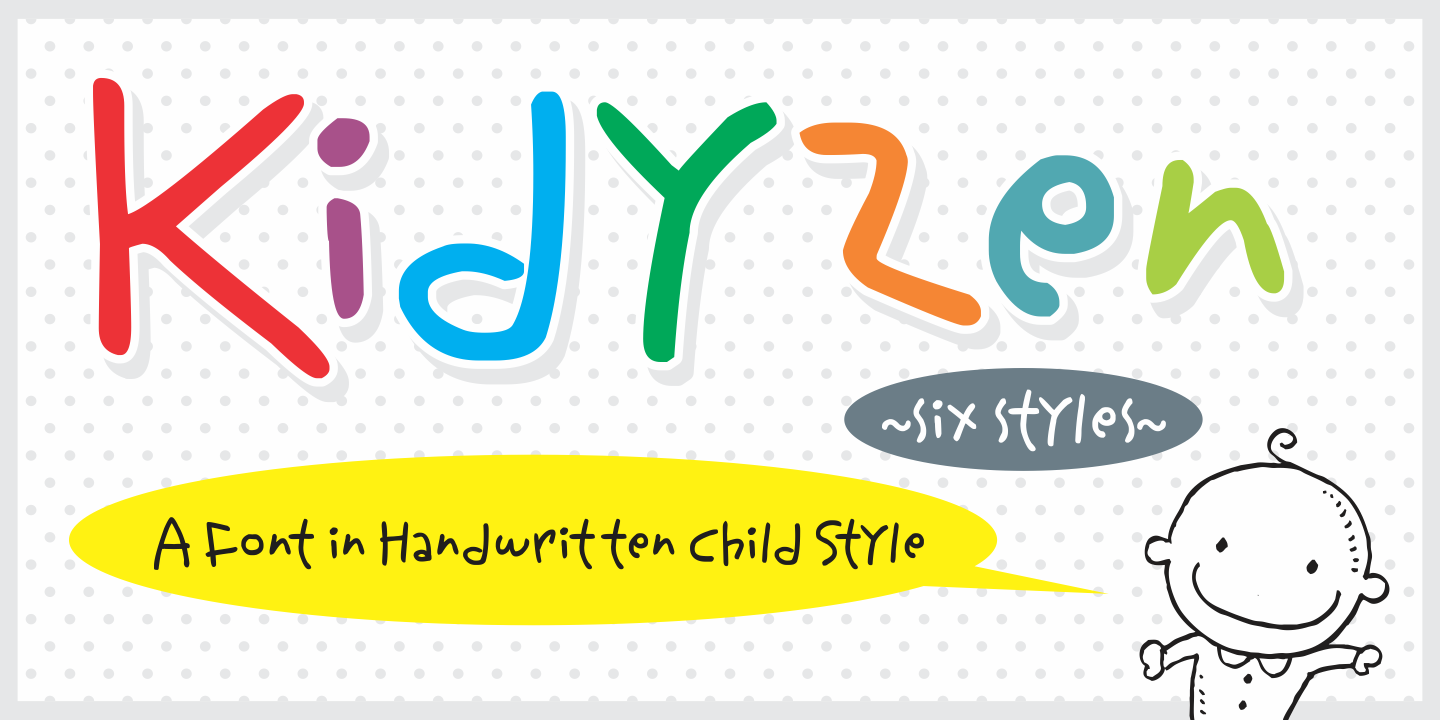
The Kidyzen Font is an excellent choice for designs that aim for a playful, friendly, and distinctly youthful aesthetic. Imagine it cheerfully gracing the cover of a children's book, adding a delightful charm to toy packaging, or bringing a vibrant and approachable feel to educational materials for young learners. It's also perfectly suited for playful social media graphics, fun event invitations (especially for kids' parties), animated show titles, and any project where you want to convey a sense of innocence, joy, and lightheartedness. Its often rounded forms, unique character, and inviting appearance make it ideal for conveying sincerity and a cheerful spirit.
What makes the Kidyzen Font so exciting is its ability to instantly infuse a design with a feeling of warmth and delightful authenticity. It frequently features soft edges and a subtly organic or hand-drawn quality that makes it feel both unique and incredibly approachable, much like a playful scribble. This font has a charming and distinctive personality that can instantly elevate your design, making it feel both whimsical and expressively creative. It’s designed to capture attention with its unassuming beauty, ensuring your message is not just seen, but felt with a sense of delightful authenticity.
The Kidyzen Font family typically might offer a few key weights to best maintain its distinctive character, possibly including stylistic alternates or unique ligatures that enhance its whimsical or playful appeal. While it might not always have an extensive range of weights, its strength lies in its unique visual style and inherent expressiveness. These variations empower designers to create a truly inviting and memorable display, ensuring the Kidyzen Font Free Download can adapt to a wide array of projects while maintaining its signature, kid-friendly charm.